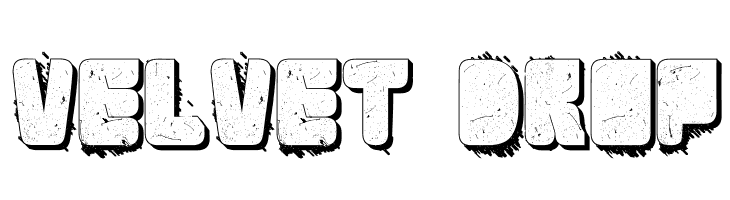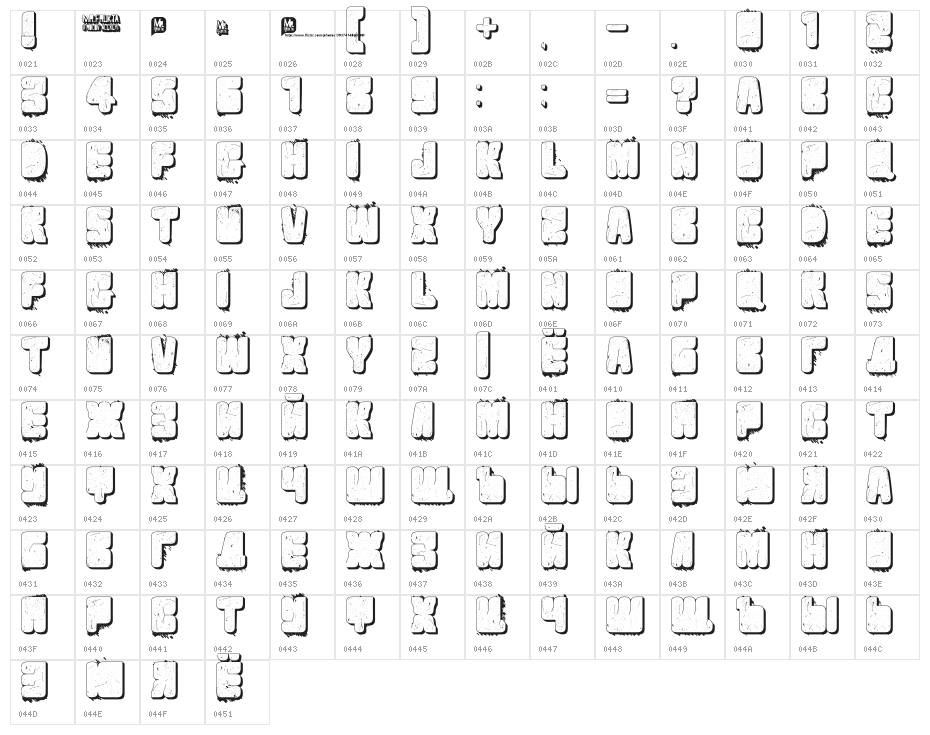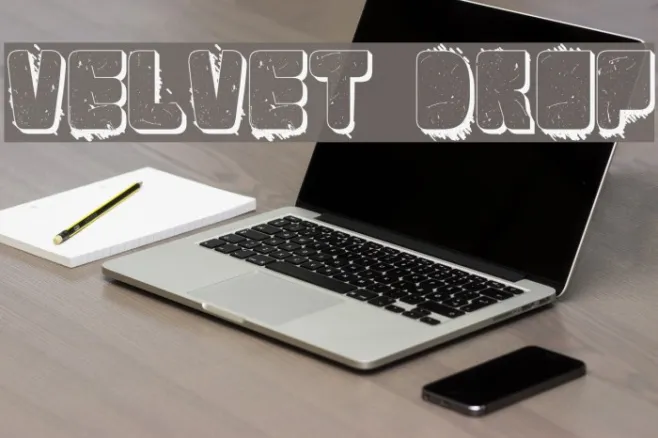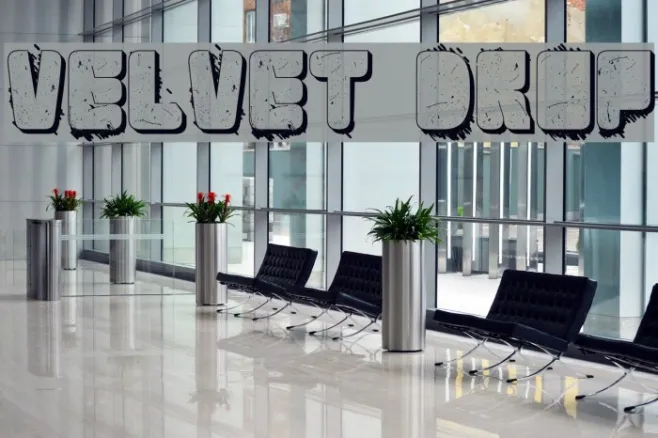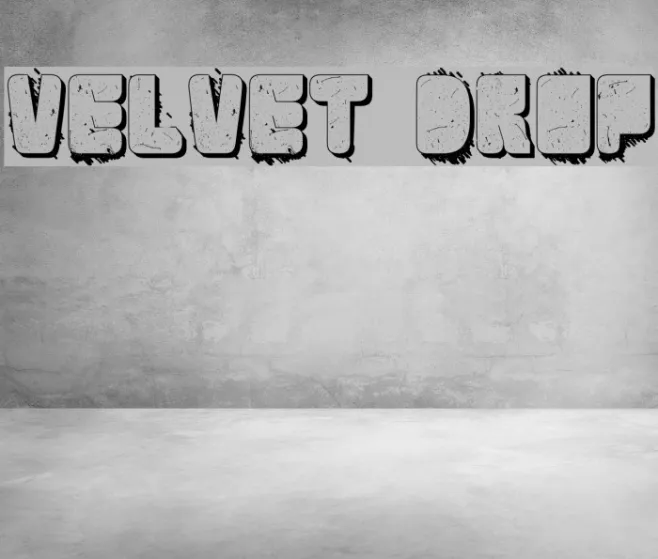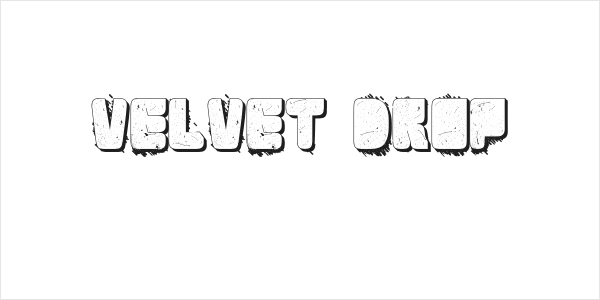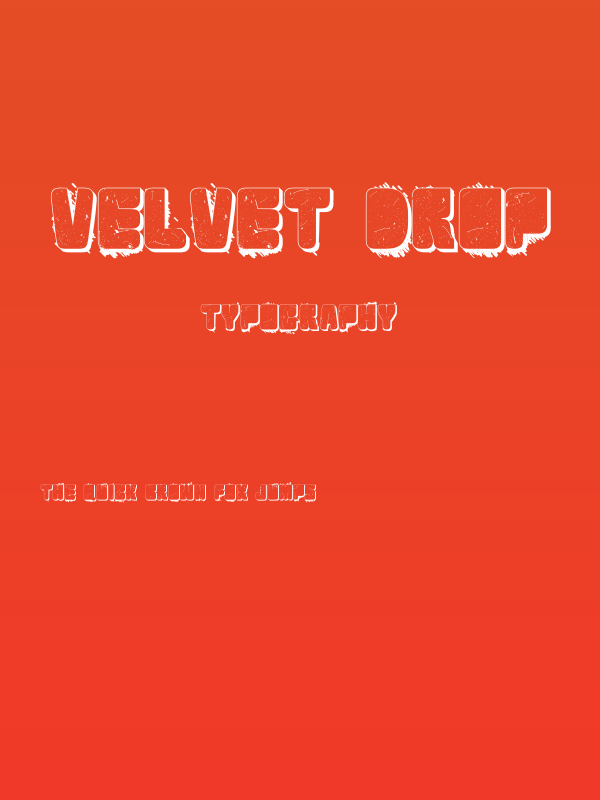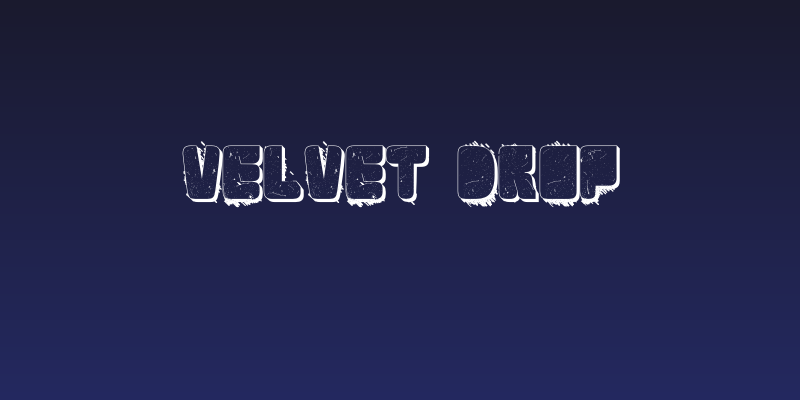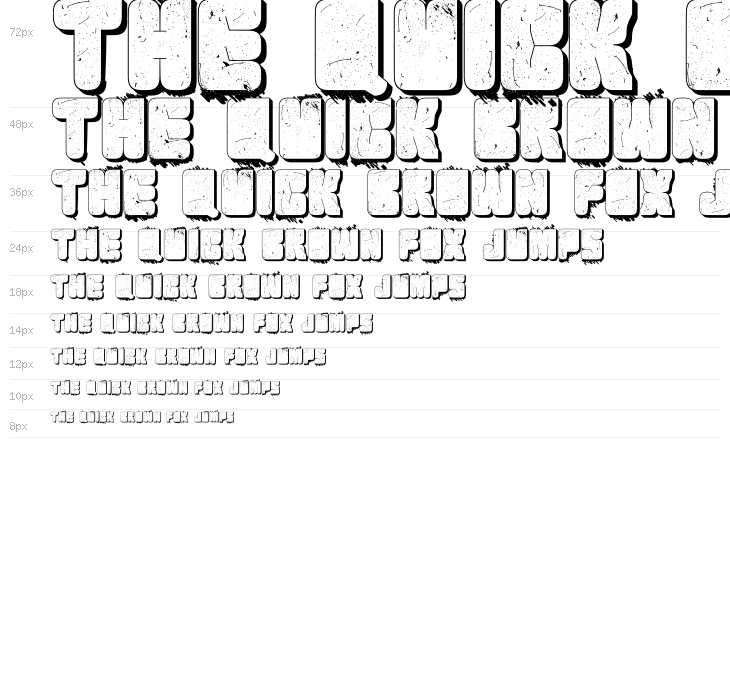
Velvet Drop Font
Velvet Drop Description
This font features a bold, playful design with a textured, distressed appearance. The characters are rounded and chunky, giving them a soft yet impactful look. Each letter and number is filled with a speckled pattern that adds a vintage, worn-out feel, reminiscent of old comic books or retro signage. The font's unique style is further emphasized by its shadowed outline, which enhances its three-dimensional effect. This combination of elements makes it stand out as a decorative choice, perfect for projects that require a touch of nostalgia or a bold statement.
| Proposed Projects | Ideal for retro-themed posters, comic book covers, vintage advertisements, and playful branding. |